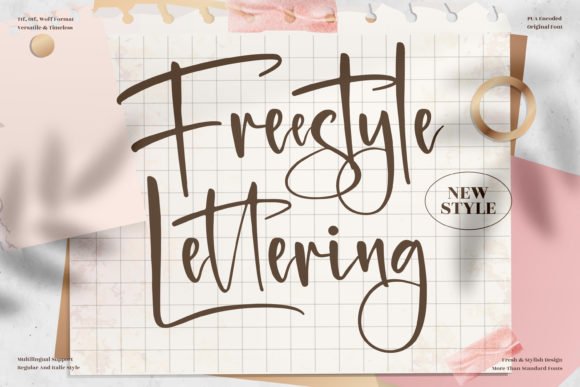
Discover the Magic of Freestyle Lettering Font
Have you ever found yourself doodling in the margins of a notebook, lost in a world of swirling lines and playful curves? That’s where the magic begins – and it’s exactly where the Freestyle Lettering Font comes in. This stunning handwritten font is a masterclass in elegance and sophistication, with letters that dance across the page in perfect harmony.
Whether you’re a seasoned designer or just starting out, the Freestyle Lettering Font is a valuable addition to your toolkit. Its versatility and timeless charm make it perfect for creating everything from wedding invitations to social media graphics. With its unique, rounded aesthetic, this font is sure to elevate your designs and leave a lasting impression on your audience.
Freestyle Lettering Font Key Features
- Font Type: Script Font
- Unique Characteristics: Hand-drawn, cursive, and whimsical design elements, with a focus on expressive and creative lettering
Designer Review: Freestyle Lettering Font
Overall, I think the Freestyle Lettering Font is a solid choice for designers looking for a unique, handwritten feel. ✨ The font’s irregularities and imperfections give it a personal touch that’s perfect for creative projects, such as logos, invitations, and social media graphics. ✨ The font’s flexibility allows it to work well in both digital and print formats, making it a versatile choice for designers.
One of the strengths of this font is its wide range of customization options, including various weights, styles, and ligatures. ✨ This makes it easy to fine-tune the font to fit the specific needs of a project. Additionally, the font’s high-resolution quality ensures that it looks great even at larger sizes.
- ⚠️ May not be suitable for body text due to its irregularities, which can make it difficult to read at small sizes.
- ⚠️ Limited language support, which may limit its use for multilingual projects.
- ⚠️ Some users may find the font’s imperfections to be distracting or unprofessional.
In conclusion, the Freestyle Lettering Font is a great choice for designers who want to add a personal touch to their projects. While it may have some limitations, its unique character and versatility make it a valuable addition to any design toolkit.
Tips for Getting the Most Out of Freestyle Lettering Font
Experiment with different font sizes, colors, and combinations to create unique and eye-catching designs.
Freestyle Lettering Font is ideal for creative projects such as:
– Handwritten quotes and phrases
– Custom invitations and stationery
– Brand logos and typography
– Social media graphics and captions
Alternatives to Freestyle Lettering Font
Abril Fatface Font
Abril Fatface Font is a beautiful, elegant script font that is perfect for creating eye-catching headlines and titles. It has a unique, handwritten feel that is reminiscent of classic calligraphy. When to use: Use Abril Fatface for luxury brands, high-end fashion, or any project that requires a touch of sophistication.
Comparison to Freestyle Lettering Font: Abril Fatface Font has a more refined and elegant feel compared to Freestyle Lettering Font, which has a more casual and playful vibe.
Playfair Display Font is a luxurious, high-end serif font that is perfect for creating stunning headlines and titles. It has a classic, elegant feel that is reminiscent of traditional typography. When to use: Use Playfair Display for high-end fashion, luxury brands, or any project that requires a touch of sophistication.
Comparison to Freestyle Lettering Font: Playfair Display Font has a more classic and sophisticated feel compared to Freestyle Lettering Font, which has a more modern and playful vibe.
Carolyna Pro Font is a modern, elegant script font that is perfect for creating stylish headlines and titles. It has a unique, handwritten feel that is reminiscent of classic calligraphy. When to use: Use Carolyna Pro for fashion brands, beauty products, or any project that requires a touch of sophistication.